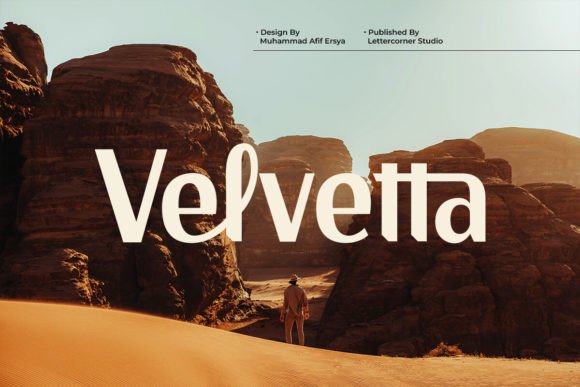
Introducing Velvetta Font: The Perfect Choice for Business Identity
In a world of digital communication, first impressions matter more than ever before. Your business card is often the first interaction potential clients have with your brand, making it crucial to leave a lasting impression. Velvetta Font, the epitome of beauty and elegance, is the perfect choice to create a business card that exudes sophistication and professionalism.
With its two distinct styles, Regular and Italic, Velvetta Font offers versatility and adaptability to suit any design vision. The Regular style radiates a classic and timeless charm, while the Italic style adds a touch of graceful movement and dynamism to your designs. Each character is meticulously crafted to ensure clarity, readability, and visual appeal, making Velvetta Font ideal for creating business cards that stand out from the crowd.
Velvetta Font is more than just a collection of letters and symbols; it is a powerful tool that empowers you to communicate your brand's unique personality and values. Whether you're a creative professional, entrepreneur, or business owner, Velvetta Font provides the perfect canvas to showcase your expertise and professionalism. It's the ideal choice for business cards, logos, branding materials, and any other design project where elegance and sophistication are paramount.
Embrace the allure of Velvetta Font and elevate your business identity to new heights. With its timeless beauty and versatility, Velvetta Font is the key to creating a lasting impression, captivating the attention of potential clients, and leaving them with a desire to learn more about your brand.